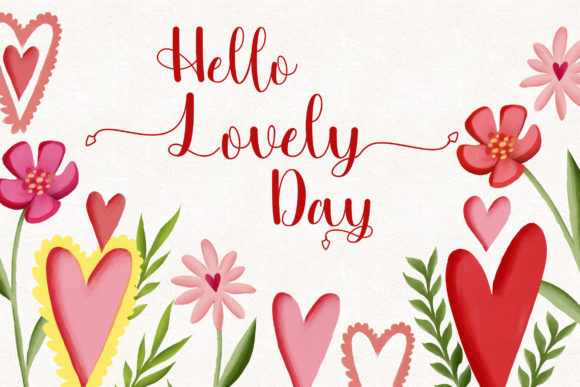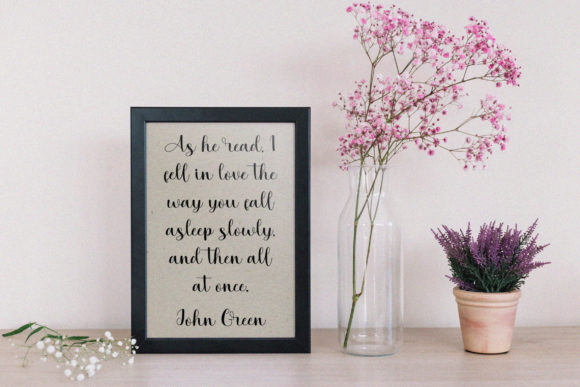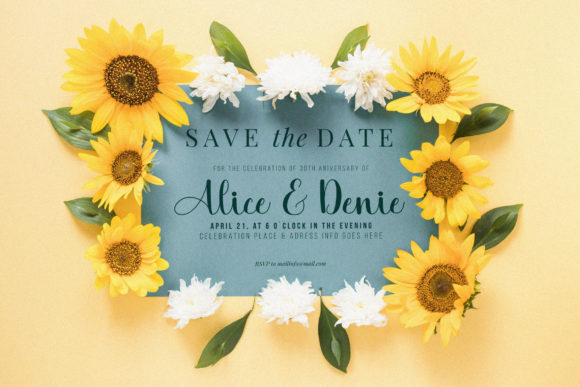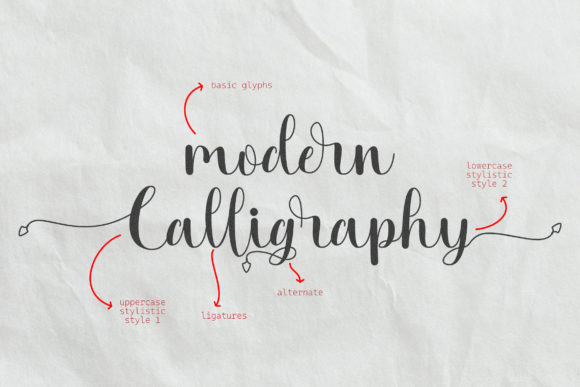
About Alyabella Font
Alyabella is a gorgeous and delicate script font. It looks gorgeous on wedding invitations, thank you cards, quotes, greeting cards, logos, business cards and every other design which needs a handwritten touch.